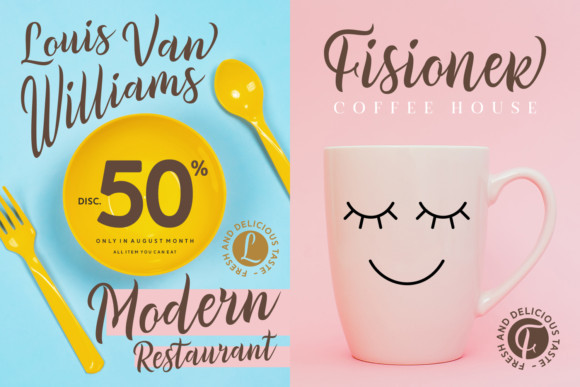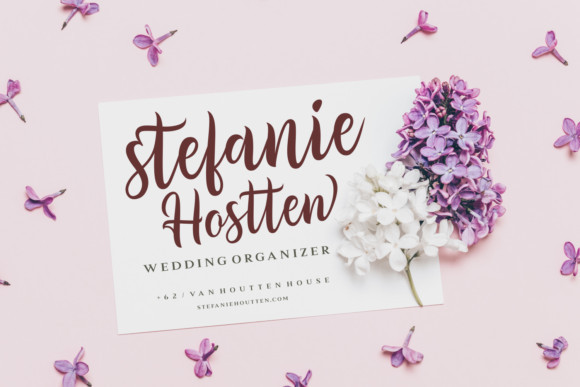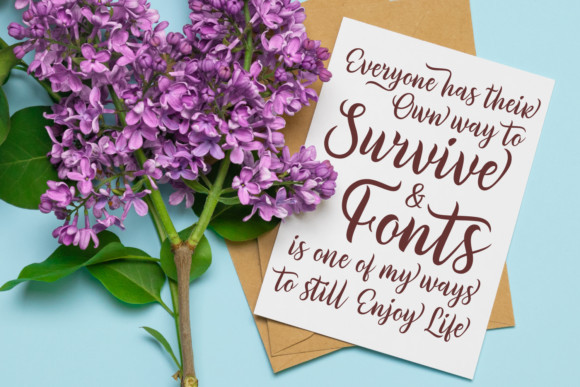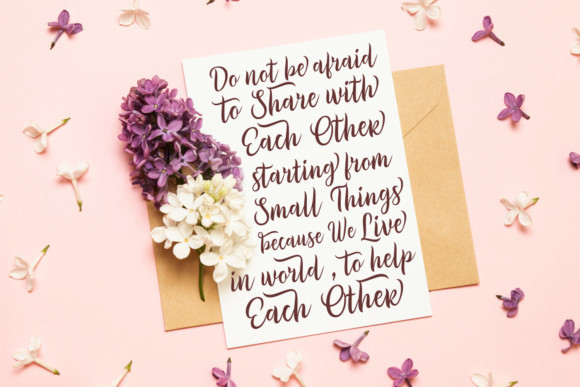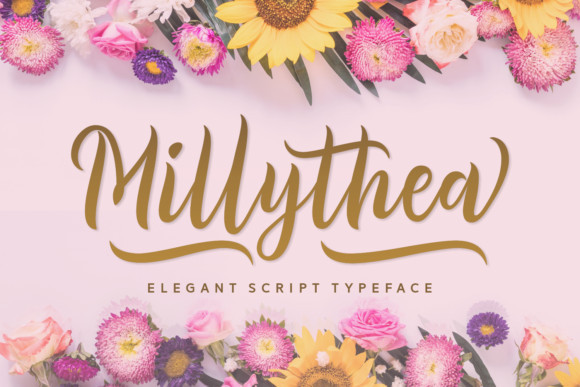
Millythea Script Font
Millythea Script – Demo Font
Hi Font Lover! This is a beautiful handwritten font filled with charm and romance, you can make your design unique. Introducing Millythea font. It’s designed and shared by Situjuh. Millythea is an elegant and cute handwritten font with a whimsical feel. It will turn any design project into a piece of art! So beautiful on invitation like greeting cards, branding materials, business cards, quotes, posters, and more!